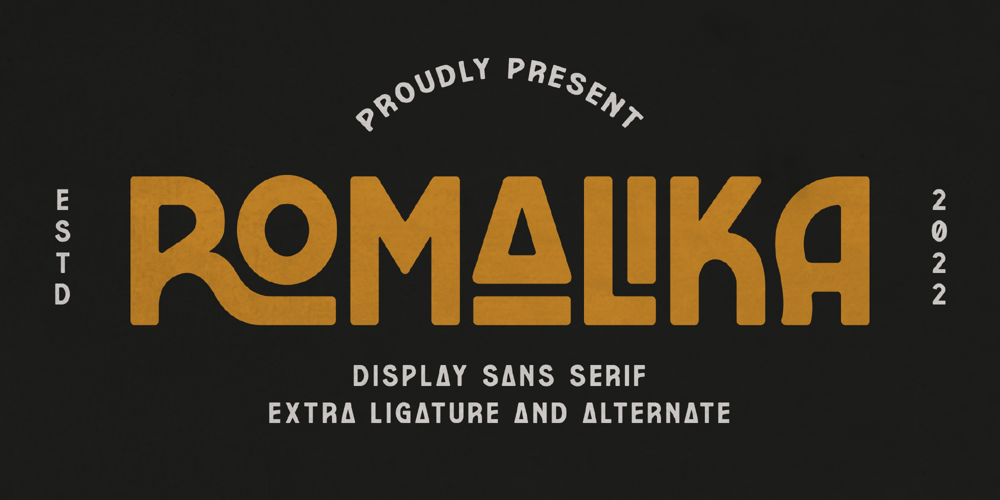
Romalika Font Family was designed by Heru Utama Putra and published by Letterena Studios. Romalika contains 2 styles and family package options. ROMALIKA is a serif modern and classic typeface that has its own unique style & modern look.This typeface is perfect for an elegant & luxury logo, book or movie title design, fashion brand, magazine, clothes, lettering, quotes, and so much more.**Uppercase